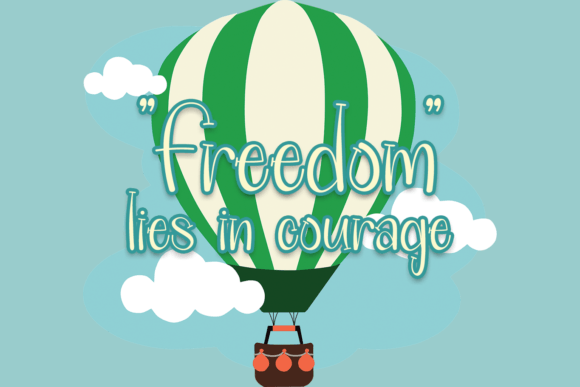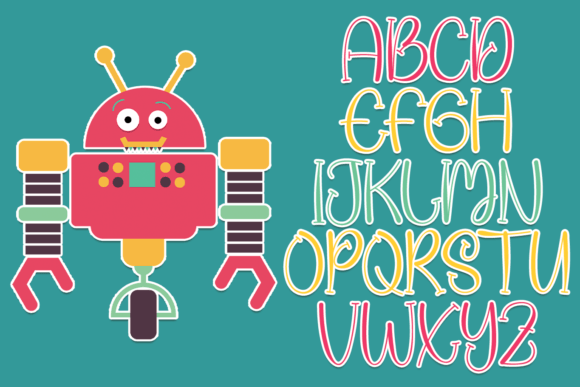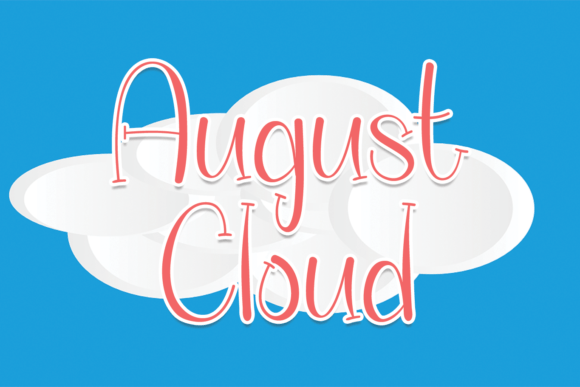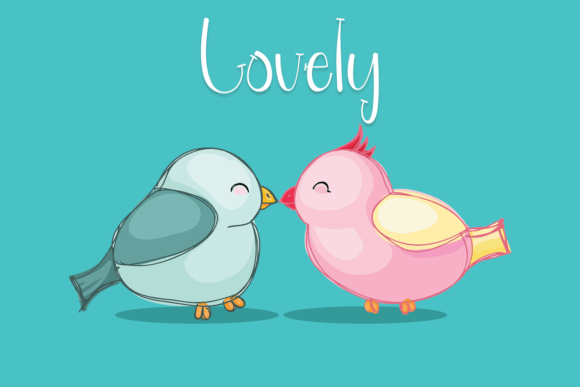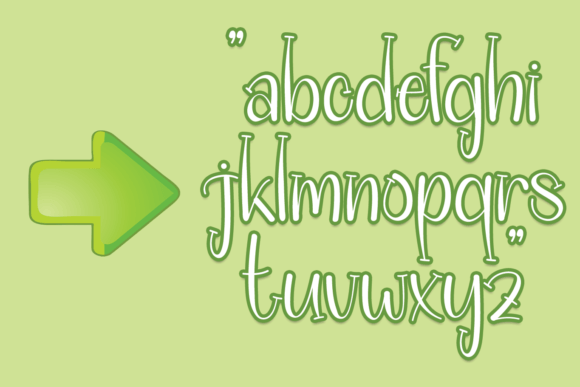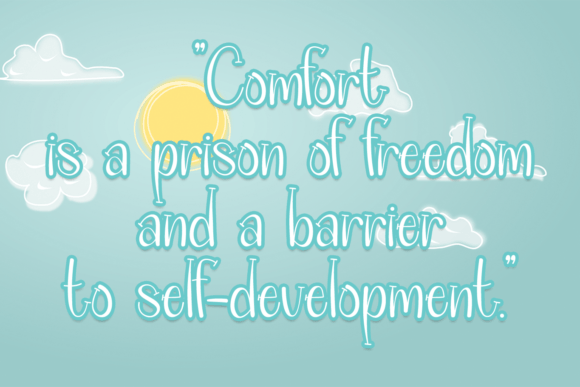
Unleash Your Inner Child with Cartoon Font
Who among us hasn’t felt the spark of creativity at some point in our lives? Maybe it was during a lazy Sunday afternoon, or while doodling in a notebook as a kid. For designers, that spark often translates into a need to create something playful, something that brings a smile to people’s faces. And that’s exactly where Cartoon Font comes in – a chic, quirky, and trendy display font that’s perfect for injecting fun and jolly vibes into your designs.
Whether you’re working on a children’s book, a marketing campaign, or a social media post, Cartoon Font is a valuable addition to your design toolkit. Its versatility and playful nature make it an ideal choice for designers looking to add a touch of whimsy to their work. With Cartoon Font, you can create designs that are both eye-catching and memorable, making it a must-have for any designer looking to tap into the world of creative expression.
- Unique Characteristics: Cartoon Font features a playful, hand-drawn style with exaggerated lines, rounded shapes, and whimsical details, making it perfect for creating a fun and engaging visual identity.
Designer Review: Cartoon Font
Cartoon Font is a playful, whimsical font that’s perfect for projects that need a lighthearted touch. ✨ The font’s rounded edges and exaggerated letterforms make it ideal for children’s books, cartoons, and other kid-friendly materials. It’s also great for adding a bit of personality to branding and marketing campaigns.
Here are some things that work well with Cartoon Font:
- ✨ Unique and recognizable character set
- ✨ Works well in digital and print formats
- ✨ Easy to read, even at small font sizes
However, there are some limitations to keep in mind:
- ⚠️ May not be suitable for formal or professional projects
- ⚠️ Can be difficult to pair with more serious fonts
- ⚠️ May not be available in all font formats or weights
Overall, Cartoon Font is a fun and creative font that’s perfect for projects that need a playful touch. While it may not be suitable for all projects, it’s a great addition to any designer’s toolkit. Just be sure to use it judiciously and pair it with fonts that complement its whimsical nature.
Cartoon Font is ideal for:
- Children’s books and educational materials.
- Marketing materials and social media graphics.
- Party invitations and event materials.
Tip: Use Cartoon Font to add a playful and whimsical touch to your designs.